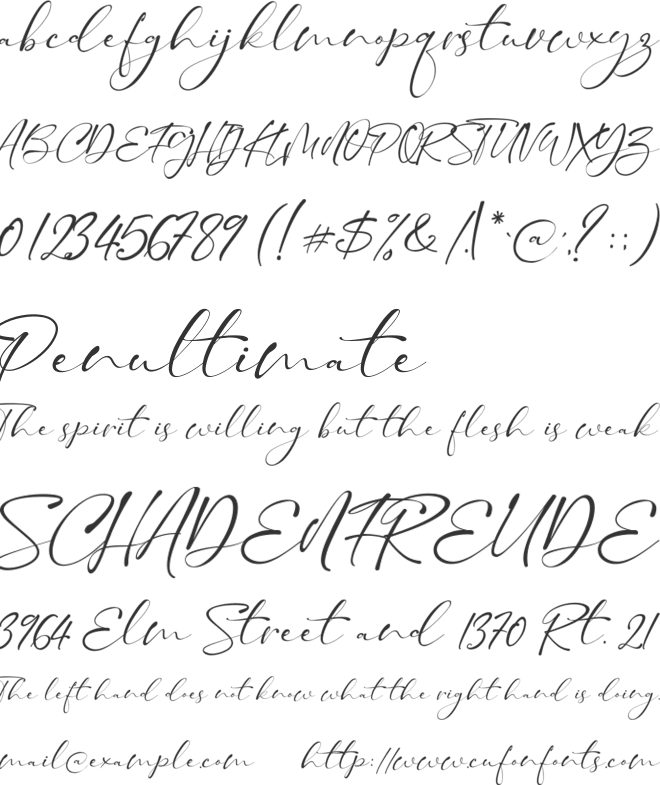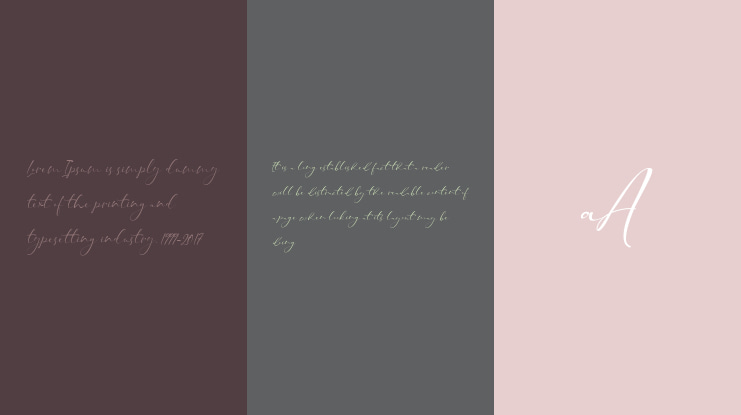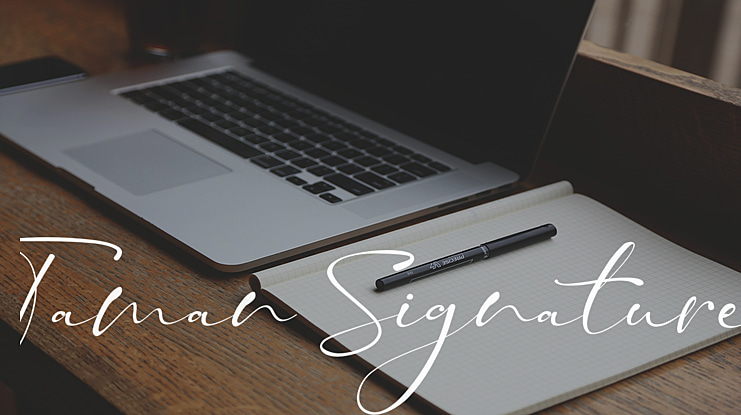
Taman Signature Font
Taman Signature is a Stylish Modern Script with casual chic flair. It is perfect for branding, wedding invites and cards, and maybe for red wine label.Taman Signature includes full set of gorgeous uppercase and lowercase letters, numerals, a large range of punctuation and 76 ligatures. All lowercase letters include beginning and ending swashes, giving realistic hand-lettered style. Use the character sets the way they are, or mix them up and use the additional options to create authentic looking hand lettered pieces.Check out the previews to see what you can do. This script is perfect for wedding suites, social media, blogs, titles, magazine layouts, monograms, businesses and anywhere you need a free flowing modern looking script.